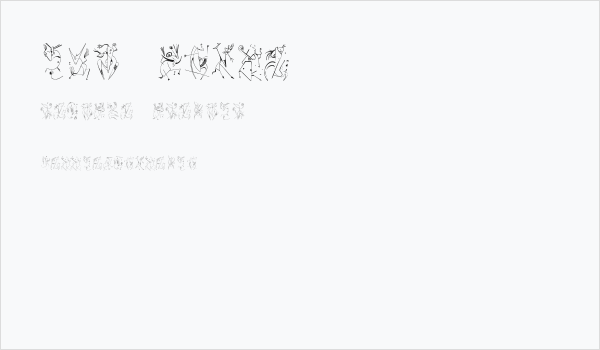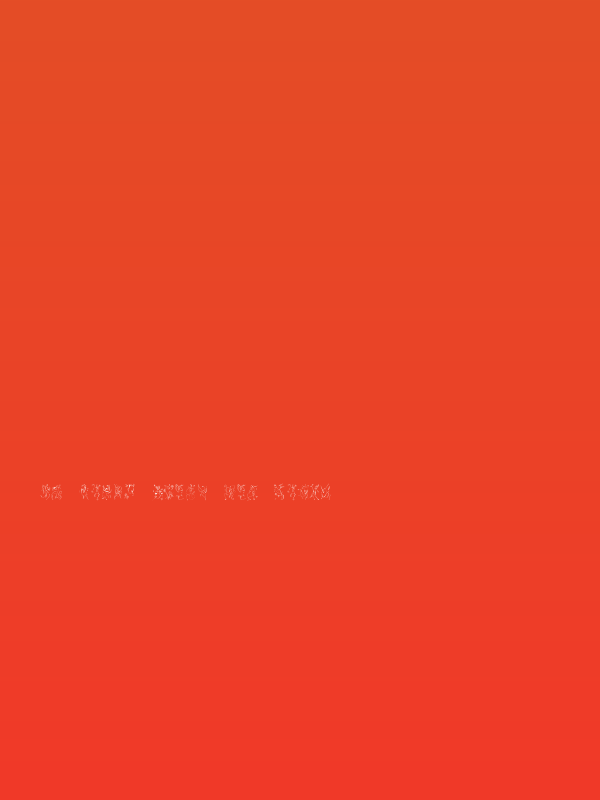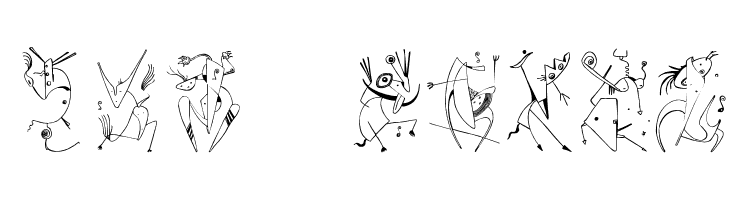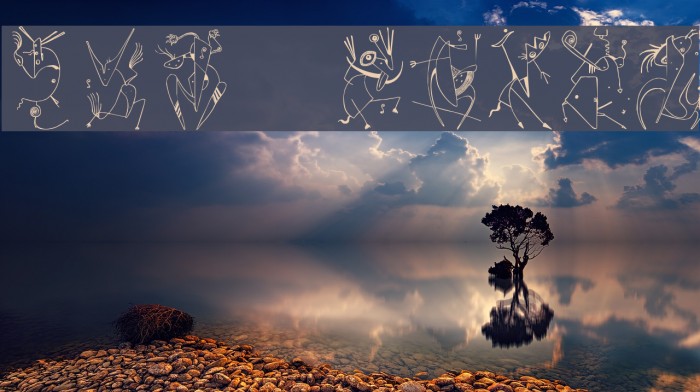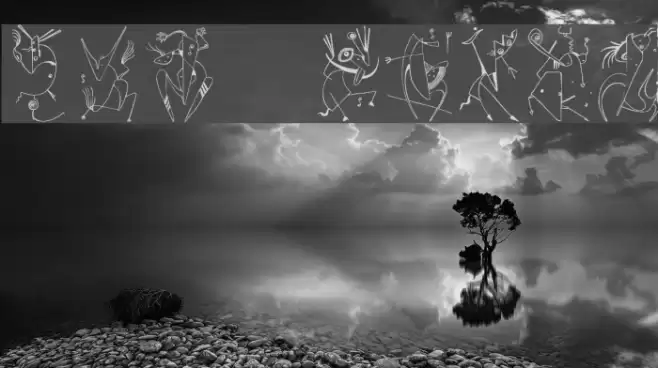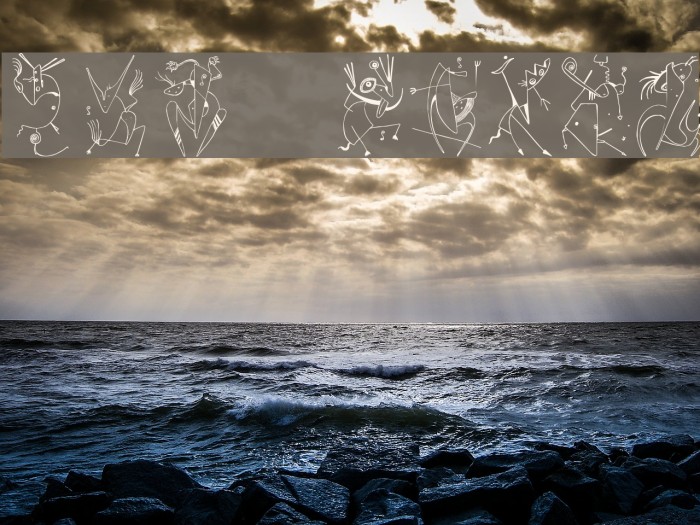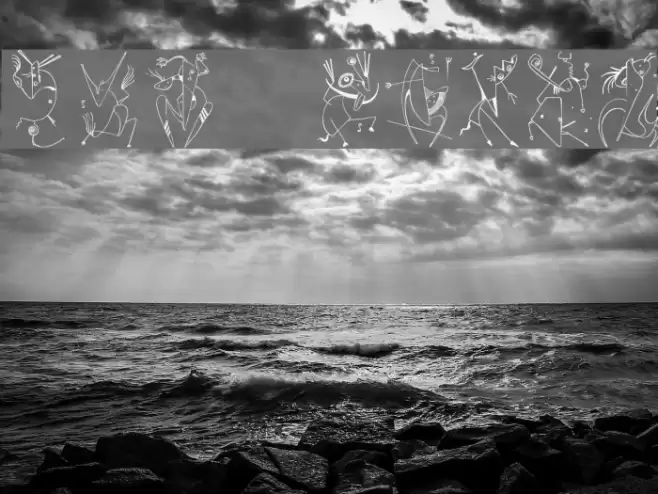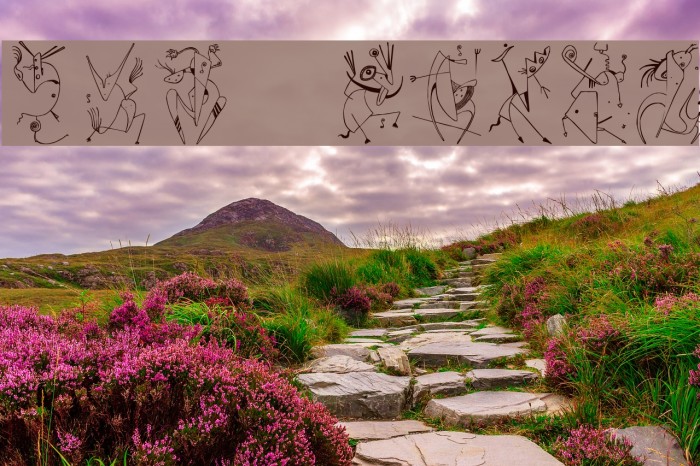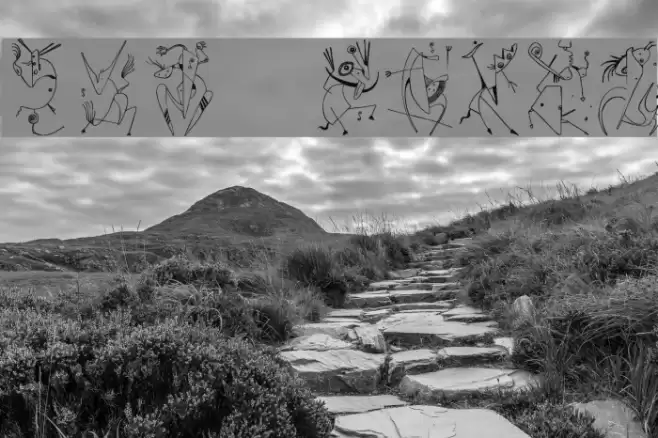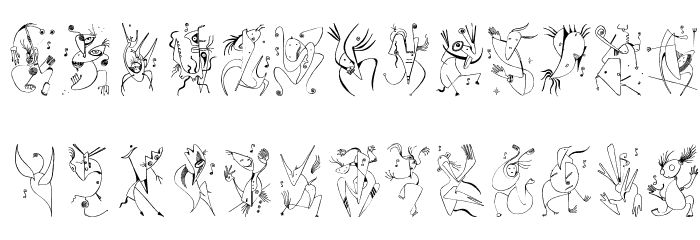
Z-Most Zimple Font
| 用途 | Artistic displays, creative branding, decorative elements. |
| おすすめプロジェクト | Ideal for art projects, creative branding, unique posters, and decorative purposes. |